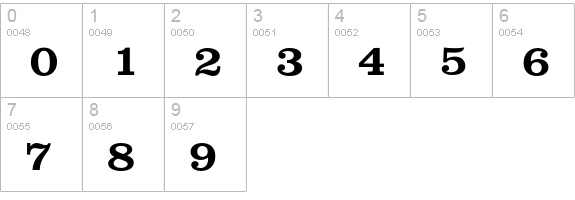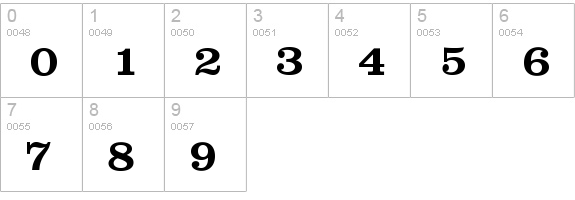
Clarendon-DemiBold is a sub-bold, structured variant in the Clarendon typeface family \xE2\x80\x94 well suited to sub-headlines and emphasised passages.
Clarendon-DemiBold is a timeless and versatile font that exudes confidence and strength. With its bold and commanding presence, this font is perfect for making a statement in any design project. The sturdy serifs and clean lines of Clarendon-DemiBold give it a classic and sophisticated look that is sure to stand the test of time. What sets Clarendon-DemiBold apart is not just its striking appearance, but also the fact that it is available for free download at FontsMarket.com. This means that you can easily access this high-quality font without any cost, making it a valuable resource for designers, creatives, and anyone looking to elevate their projects with a touch of elegance and style. Whether you're working on branding, advertising, editorial design, or any other creative endeavor, Clarendon-DemiBold is a reliable choice that will help you make a bold statement. Download it for free today and see how this exceptional font can enhance your work.